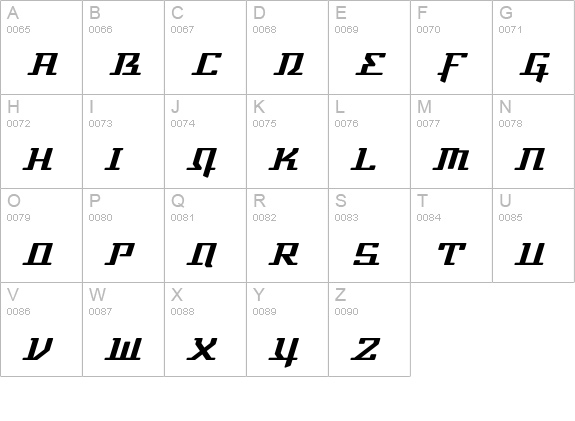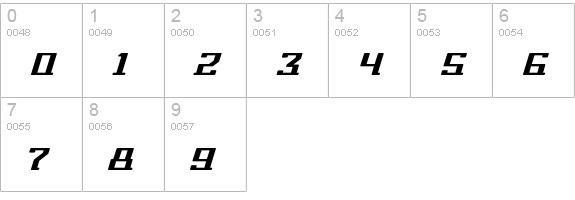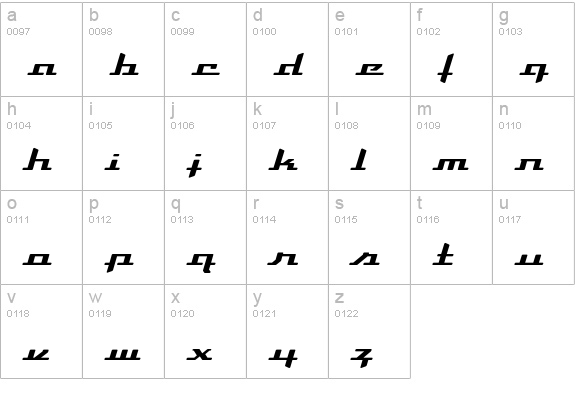
DevilleThruster-DeluxeTwo Font Details
The DevilleThruster-DeluxeTwo font is a sleek and stylish typeface that exudes sophistication and elegance. Its unique design features sharp angles and clean lines, making it perfect for a wide range of creative projects. Whether you're working on a branding campaign, designing a website, or creating a print advertisement, this font will help you stand out from the crowd. What's even better is that DevilleThruster-DeluxeTwo is available for free download at FontsMarket.com. That's right, you can elevate your designs without breaking the bank by accessing this high-quality font at no cost. Don't miss out on this fantastic opportunity to enhance your projects with a premium typeface that won't cost you a thing. Download DevilleThruster-DeluxeTwo today and take your designs to the next level!